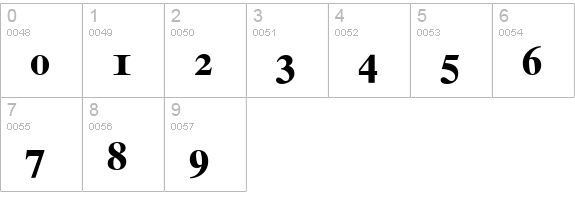
Greco Ten OldStyle SSi Bold Old Style Figures is a strong, high-contrast variant in the Greco typeface family \xE2\x80\x94 well suited to headlines, attention-grabbing titles, and strong calls-to-action.
Greco Ten OldStyle SSi Bold Old Style Figures font is a timeless and elegant typeface that exudes sophistication and class. Its bold weight and old-style figures give it a striking presence, making it perfect for headlines, titles, and other prominent text elements. With its classic design and superior readability, this font is sure to make a statement in any design project. The best part? Greco Ten OldStyle SSi Bold Old Style Figures font is available for free download at FontsMarket.com. Whether you're a designer looking to add a touch of vintage flair to your work or a typographer in search of a reliable and versatile typeface, this font is a must-have addition to your collection. Download it today and elevate your designs with the timeless charm of Greco Ten OldStyle SSi Bold Old Style Figures font.